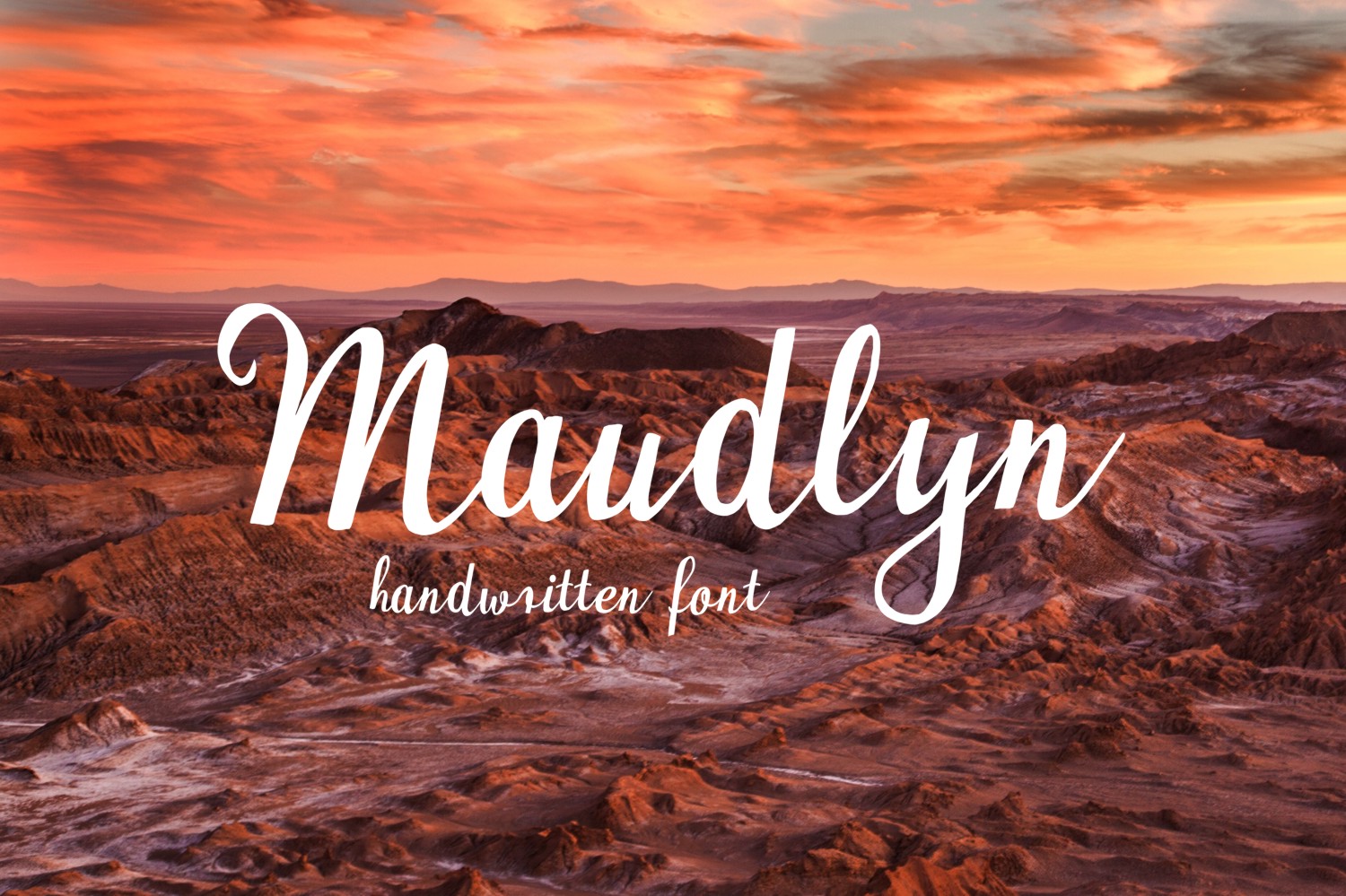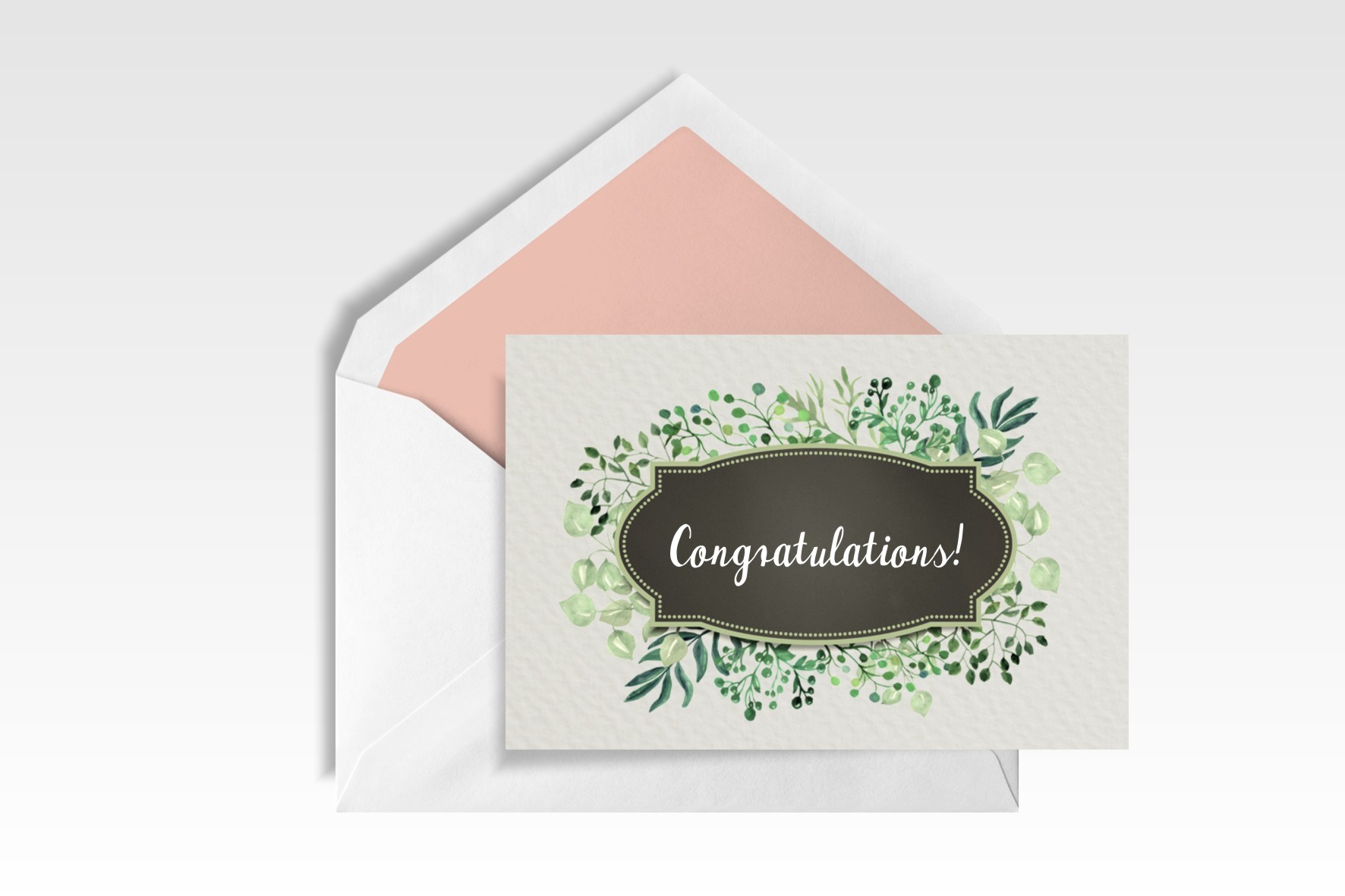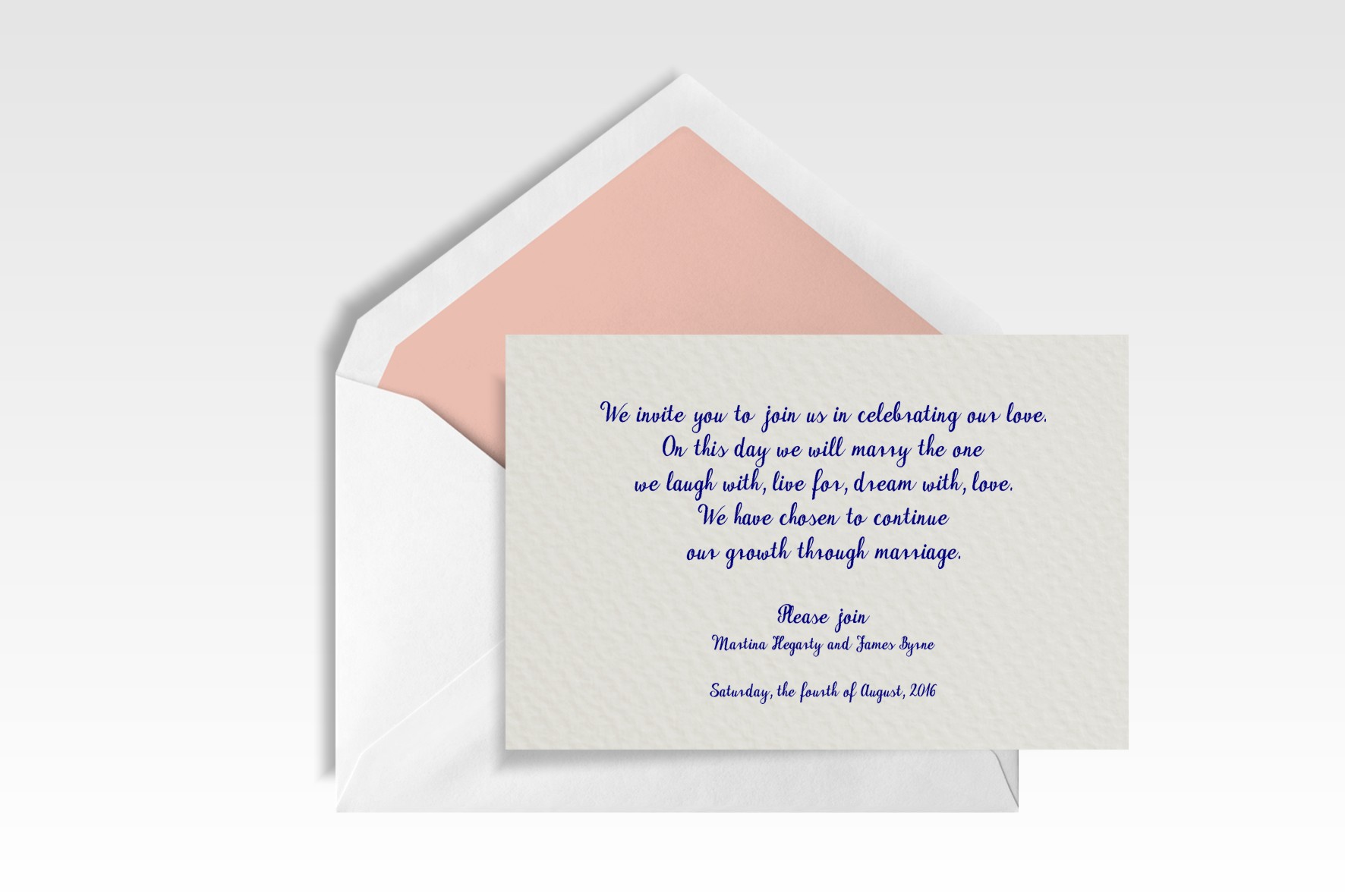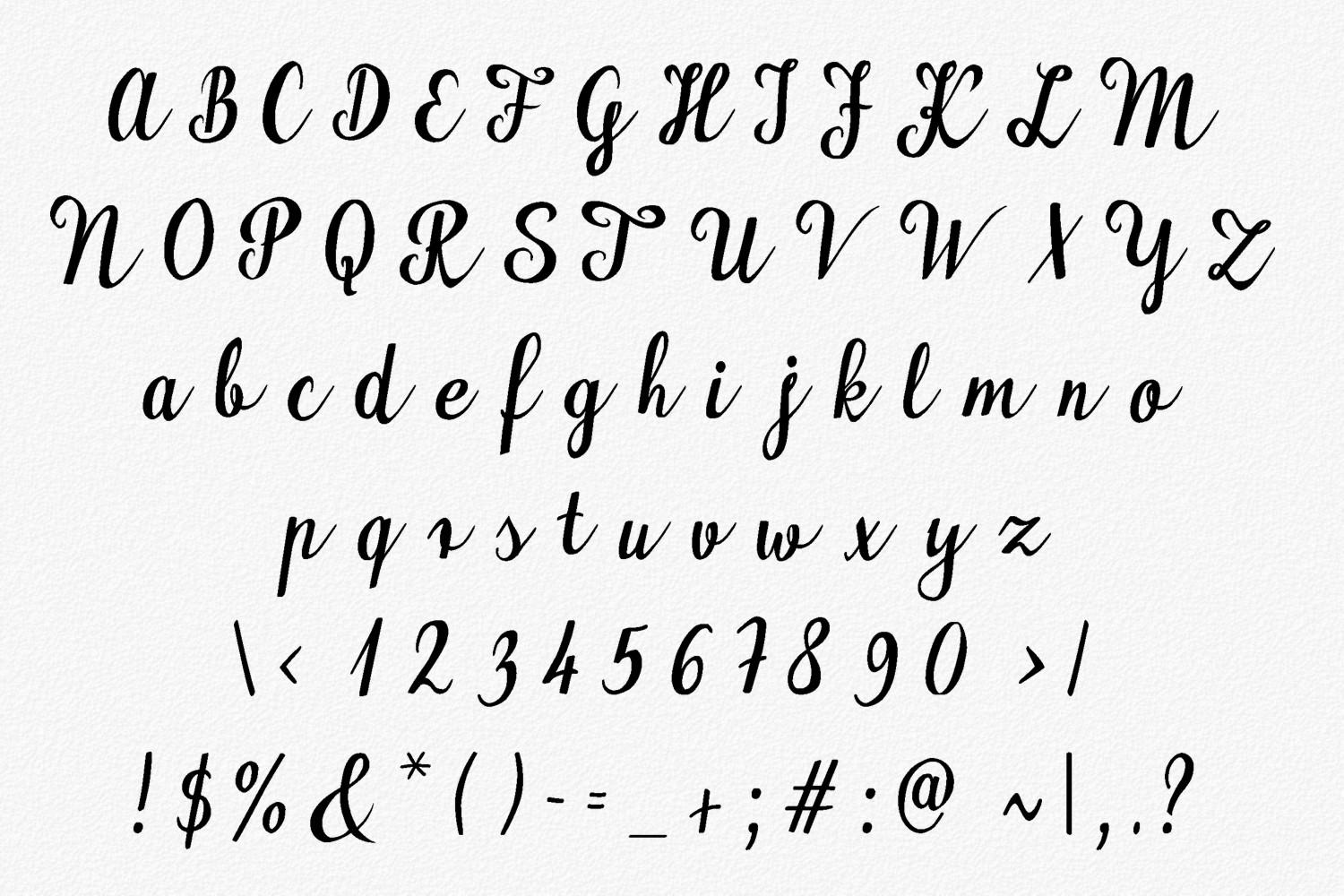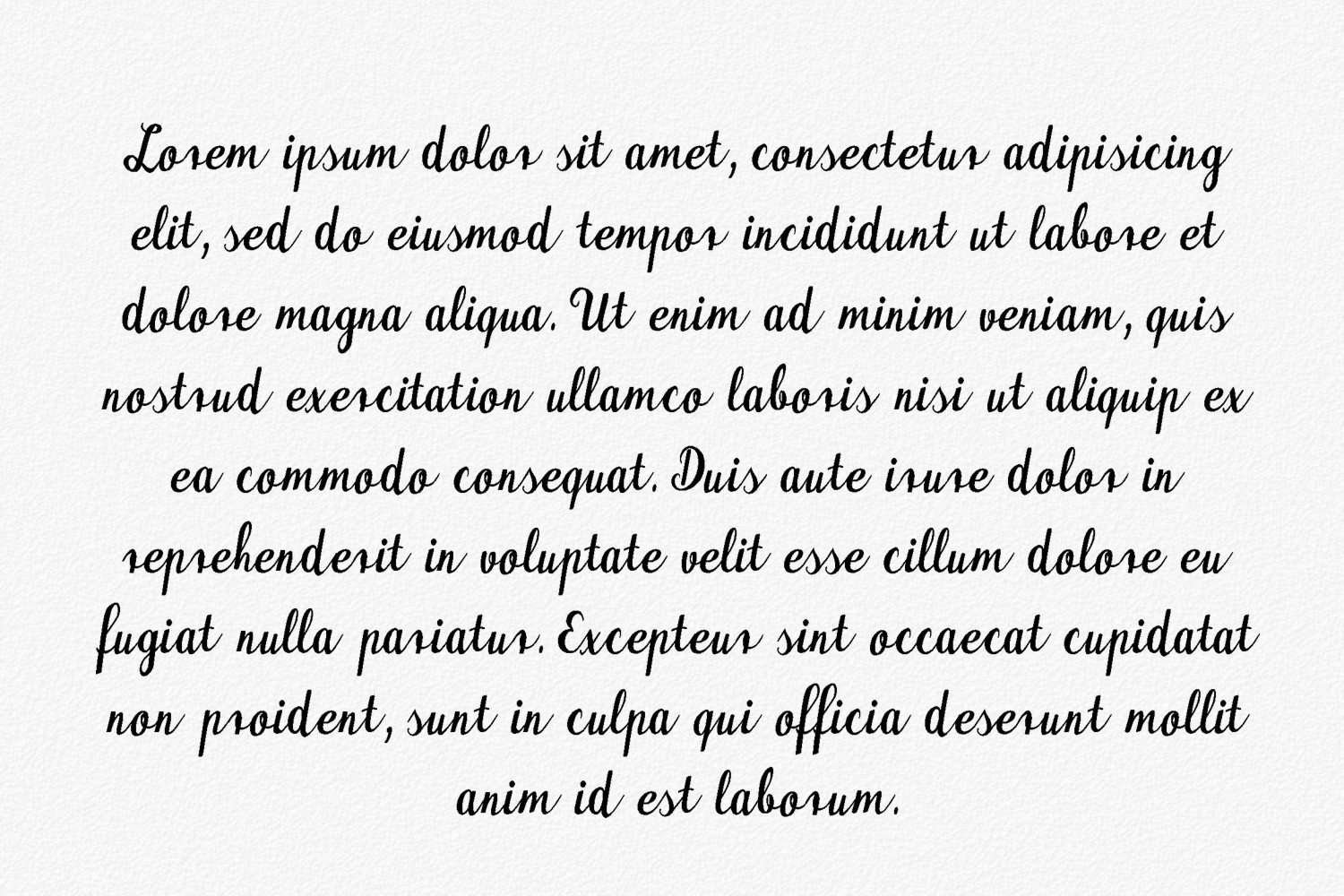
Maudlyn Font
About Maudlyn Font
Maudlyn is a stunning handwritten typeface, both sweet and legible making it suitable to a wide range of designs and uses. This font is romantic, and can amplify any project.